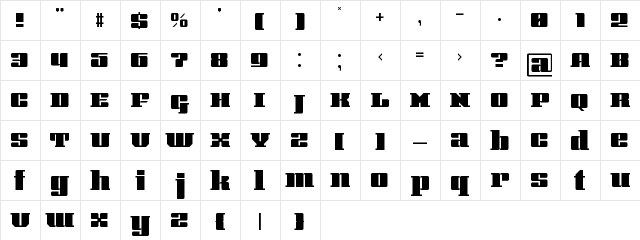
AGRAR Unicase Regular
| Designer | thomas thiemich |
Design Context for AGRAR Unicase Typeface
AGRAR Unicase takes a measured approach to typography — its balanced proportions and neutral character make it a reliable workhorse for both digital and print work.